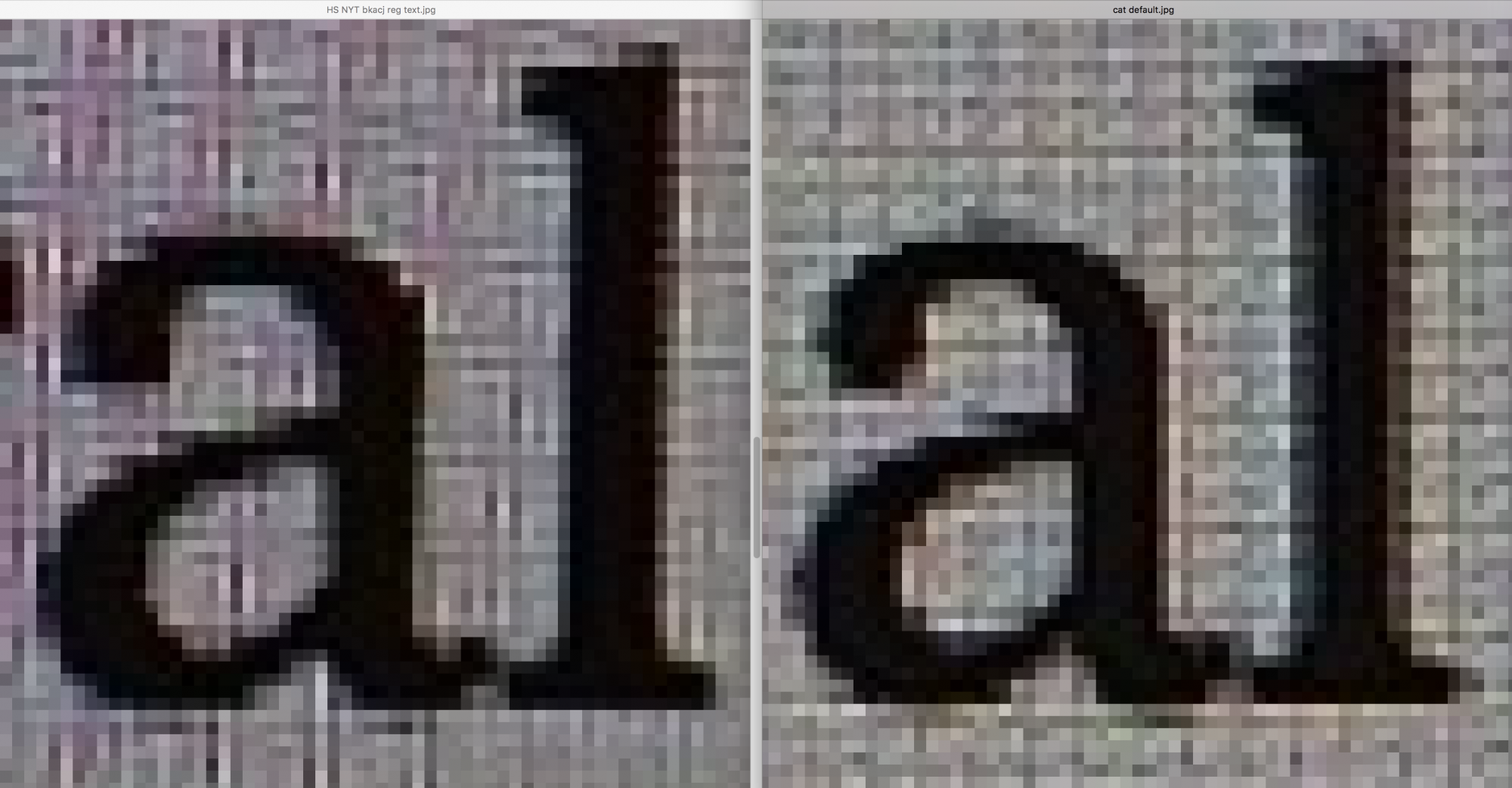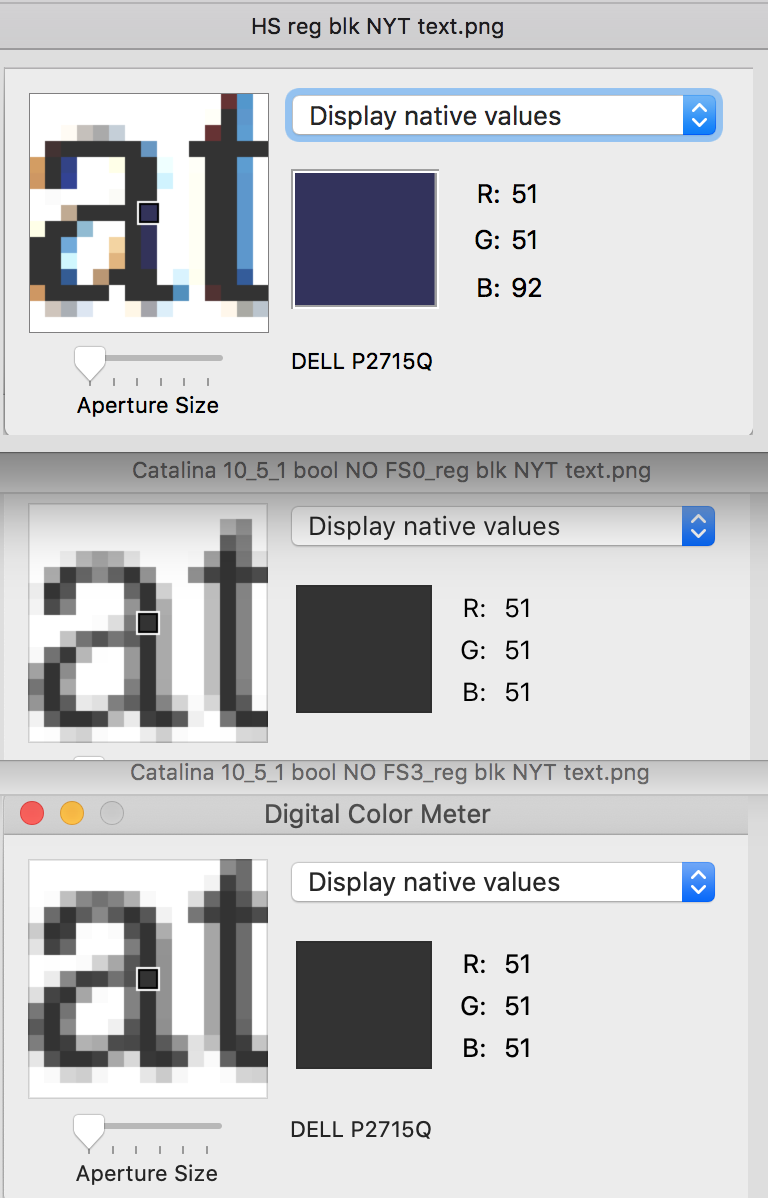
Is there any real fix for the thin fuzzy fonts on non-retina MBA?
Got a LG 27" 5K monitor (27MD5KL-B) today and fonts look beautiful. I thought that I would miss the extra space of my 34" ultra wide but the image quality of this new monitor makes up for it.
I reverted the "fixes" I had used in Mojave:
I have set the resolution to "Default for display" and "Use font smoothing when available" is enabled (System Settings > General).
Even Retina Displays are affected. I have it installed on my mbp2017 which I use with an LG Ultrafine 5K and text still looks fuzzy with AA. With AA off fonts get so thin you can hardly read them and window edges look crooked. Catalina is a mess.
Is there any real fix for the thin fuzzy fonts on non-retina MBA?
Did you mean for a 4K desktop? Because the P2715Q is 4K, not 5K.I find it rather ironic that macOS, which led the way with anti-aliasing back in the day, now looks awful on standard dpi dispalys compared to Windows. I did try a P2715Q, but the non-integer scaling for a 5K desktop isn't perfect. It's a shame there aren't any matte 5K monitors available anymore.
I reverted the "fixes" I had used in Mojave:
The resolution is set to "Default for display" and "Use font smoothing when available" is enabled (System Settings > General).
Honestly, I wish that Apple would leave well enough alone, and stop changing their font rendering with every new release of macOS.
I've lost sight of what problem they must think they're trying to solve anymore.
They are not trying to solve anything. They are trying to cut on development and maintenance cost wherever possible. That is what I am thinking is the reason.
It isn't. Mojave had RGB rendering still alive for some elements. Catalina does not, only greyscale.They didn't change it. The issue is that you set some non standard anti-aliasing preferences in Mojave, and those settings cause things to break on 10.15.
With the default settings the anti-aliasing is the same.
Yes. I said the supported settings looks exactly the same. Custom anti-aliasing preferences that kicks in unsupported leftovers that should have been removed in Mojave are unsupported and are bound to break.
Did you mean for a 4K desktop? Because the P2715Q is 4K, not 5K.
Honestly, I wish that Apple would leave well enough alone, and stop changing their font rendering with every new release of macOS.
I've lost sight of what problem they must think they're trying to solve anymore.
I think the original explanation with Mojave was that sub-pixel anti-aliasing didn't work well with Dark Mode or retina displays in general. Also, with an increasing focus on motion in UI, CoreAnimation never supported sub-pixel in the first place because it was too computationally-intensive to tweak the effect on each frame while an animation was playing.
I think that they are right. Old method antialiasing looks horrible with Dark Mode. New method looks better.
But then again, new method of antialiasing looks horrible on normal (light) mode on non Retina screen.
I guess the solution is: keep dark mode all the time. 🤷♀️